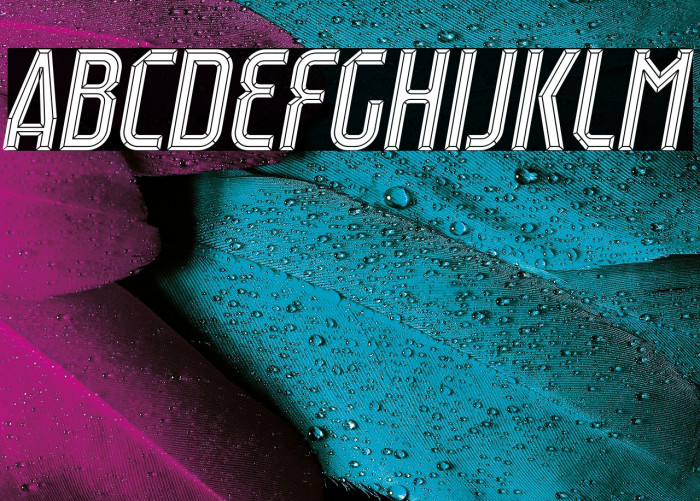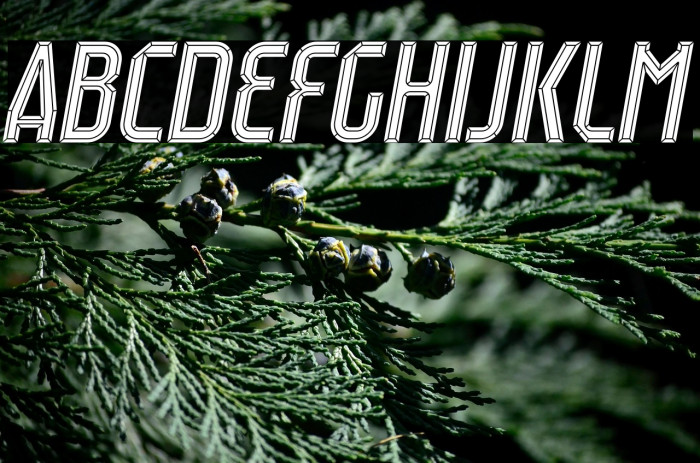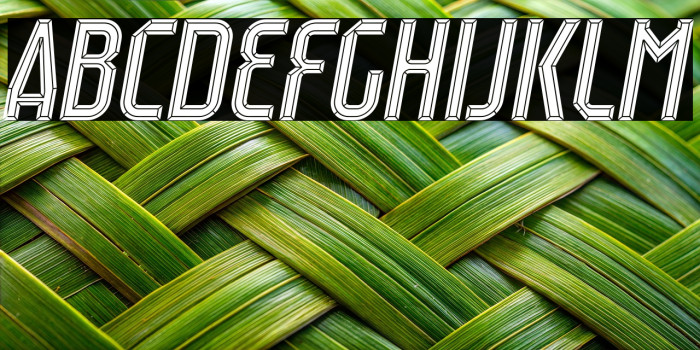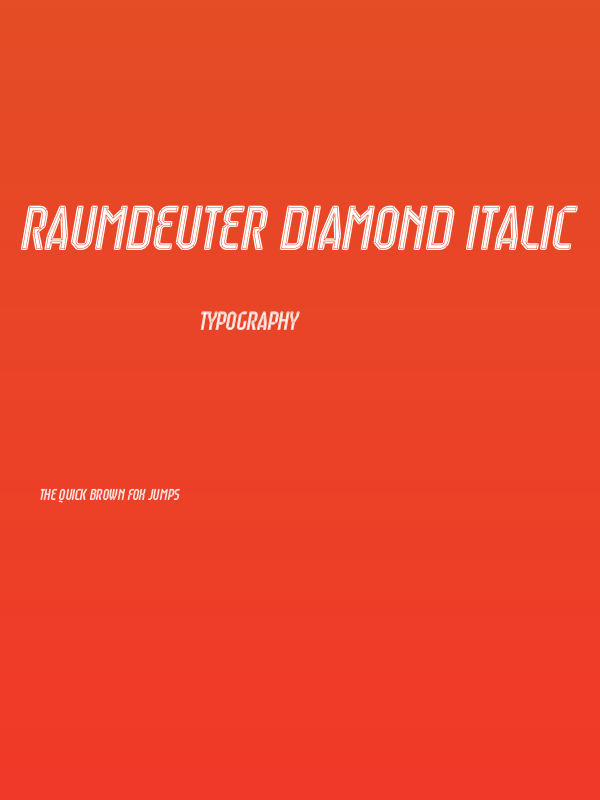
Raumdeuter Diamond Italic Font
Raumdeuter Diamond Italic Description
This font features a bold, geometric design with a distinct italic slant, giving it a dynamic and modern appearance. The characters are outlined with a double-line effect, adding depth and a three-dimensional look. The angular and sharp edges contribute to a futuristic and edgy style, making it stand out in any design. The font maintains consistent spacing between characters, ensuring readability while preserving its unique aesthetic. Its bold weight and high contrast in stroke thickness make it suitable for impactful and attention-grabbing text.
| Proposed Projects | Ideal for futuristic branding, tech-related designs, posters, and headlines. |